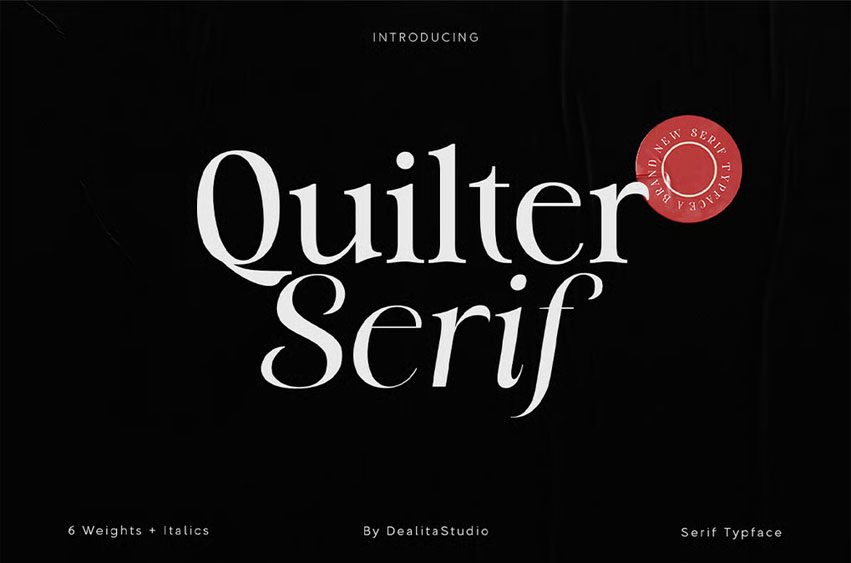
Quilter Font
Quilter Font is not just an elegant serif; it is a powerful Variable Font engineered for the next generation of dynamic branding. Offering seamless, continuous adjustments across its design axes (Weight, Contrast, or Width—depending on the font’s axes), Quilter allows designers to fine-tune the typeface with unparalleled precision. This is the ultimate tool for high-end websites, apps, and brands requiring fluid, perfect typography.
Eliminate the need to load multiple weight files. As a Variable Font, Quilter provides unlimited interpolation between styles, resulting in significantly smaller file sizes and superior web performance. This feature is critical for branding agencies working on large corporate websites and mobile applications where speed and visual consistency are paramount.
Variable Font Power & Professional Utility:
• Variable Font Technology: Control the font axes continuously, offering virtually infinite styles from one single file.
• Superior Web Performance: Drastically reduces file loading time, crucial for SEO and user experience.
• High-Contrast Design: Elegant, luxurious aesthetic perfect for fashion and finance sectors.
• Comprehensive Multilingual Support: Ready for 60+ languages, ensuring global deployment capability.
Essential for Forward-Thinking Brands:
• Dynamic Web Design: Implementing custom styles that change based on screen size or user interaction.
• Luxury E-commerce & Editorial: Flexible headlines and precise body text for high-end digital publications.
• Corporate Apps & UI: Consistent, high-performance typography across all digital interfaces.
• Motion Graphics: Allows for fluid, custom-weight animations in branding videos.